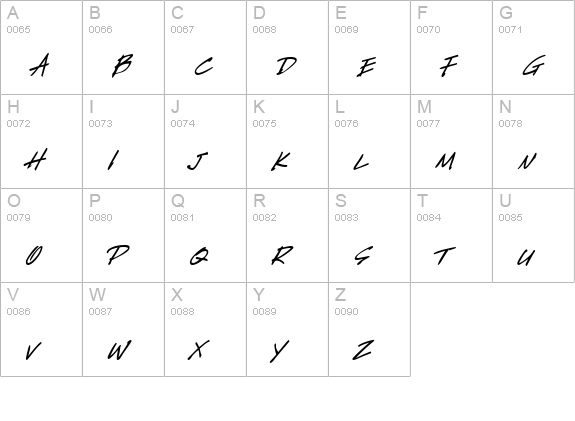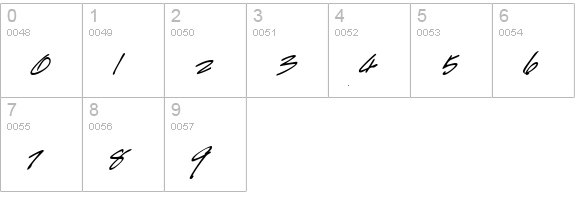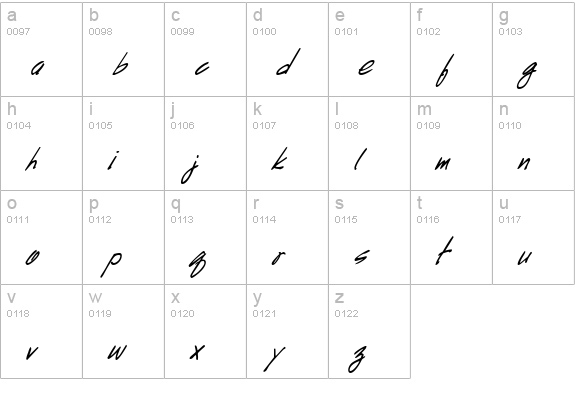
HandScript Bold Italic is a strong, high-contrast, italic variant in the HandScript typeface family \xE2\x80\x94 well suited to headlines, attention-grabbing titles, and strong calls-to-action.
HandScript Bold Italic font is a stunning and expressive typeface that adds a touch of elegance and sophistication to any design project. With its bold and italicized strokes, this font exudes confidence and style, making it perfect for creating eye-catching headlines, logos, and invitations. The hand-drawn letterforms of HandScript Bold Italic font are carefully crafted to mimic the fluidity and beauty of handwritten calligraphy. Each character is meticulously designed, with intricate details and graceful curves that give this font a unique and artistic flair. Whether you're working on a wedding invitation, a branded logo, or a promotional poster, HandScript Bold Italic font offers versatility and charm. Its boldness brings a sense of strength and impact to your designs, while the italicized slant adds a touch of sophistication and elegance. One of the best things about HandScript Bold Italic font is that it is freely available to download at FontsMarket.com. This means that you can easily access and use this incredible font in your design projects without any cost. Its availability for free makes it an ideal choice for budget-conscious designers, students, and anyone who wants to add a touch of beauty to their creations without breaking the bank. So why wait? Download HandScript Bold Italic font today from FontsMarket.com and start creating stunning designs that leave a lasting impression. Whether you're a professional designer or a hobbyist, this font is sure to elevate your projects to new heights of elegance and sophistication.